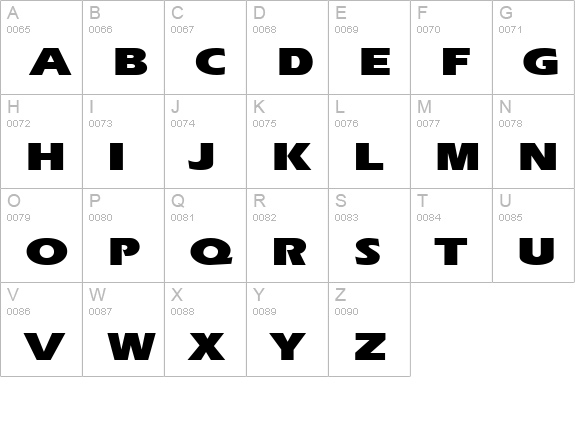
ErgoeBlackExpanded Regular Font Details
ErgoeBlackExpanded Regular is the standard, neutral variant in the ErgoeBlackExpanded typeface family \xE2\x80\x94 well suited to general body text, paragraphs, and standard typographic work.
ErgoeBlackExpanded Regular font is a sleek and modern typeface with a bold and distinctive look. This font is perfect for creating eye-catching designs that demand attention. With its expanded letterforms, ErgoeBlackExpanded Regular exudes a strong and confident presence on any project. The versatility of this font makes it suitable for a wide range of design applications, from logos and branding to headlines and posters. Its clean lines and sharp edges give a contemporary and professional appearance to any text. Best of all, ErgoeBlackExpanded Regular font is available for free download at FontsMarket.com. Take advantage of this fantastic offer and enhance your design projects with this stylish and impactful typeface today!